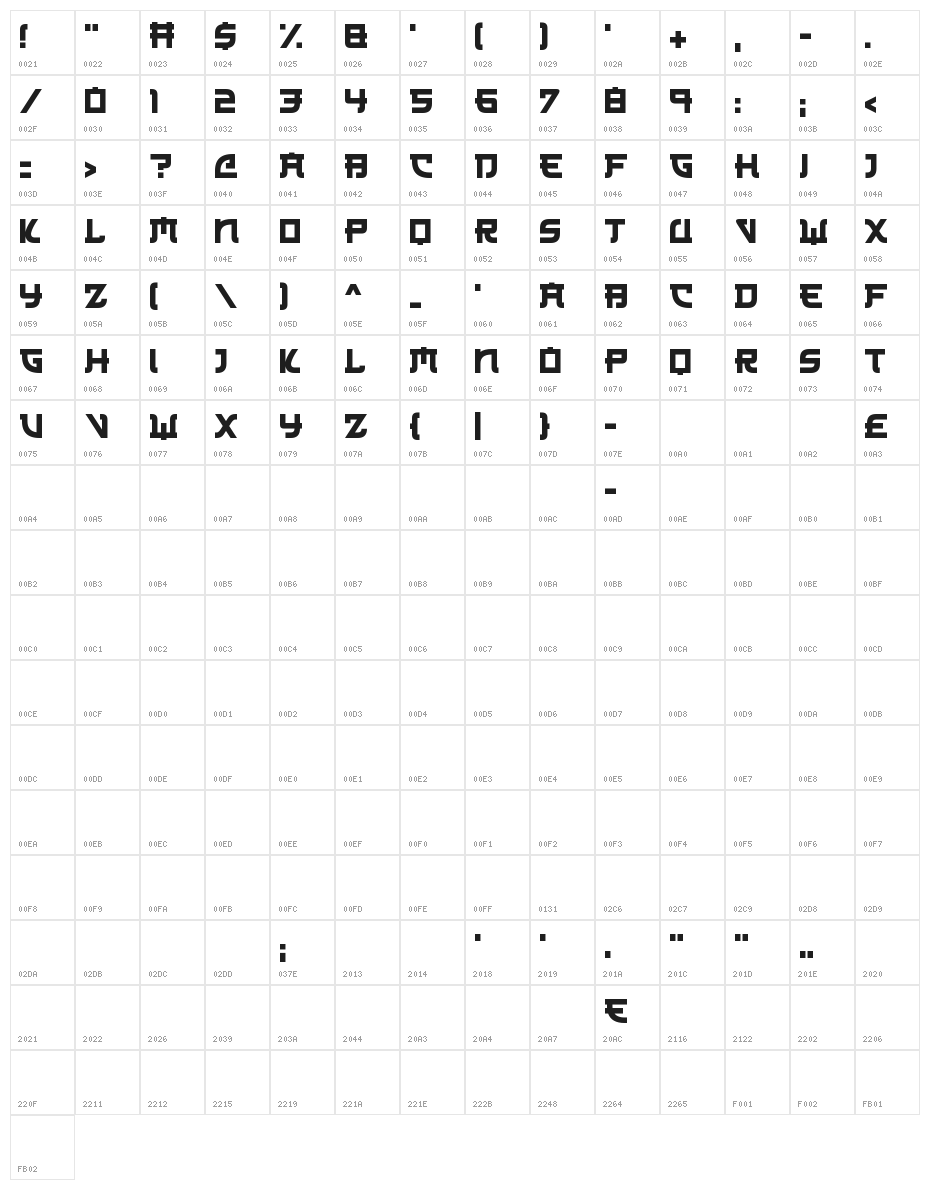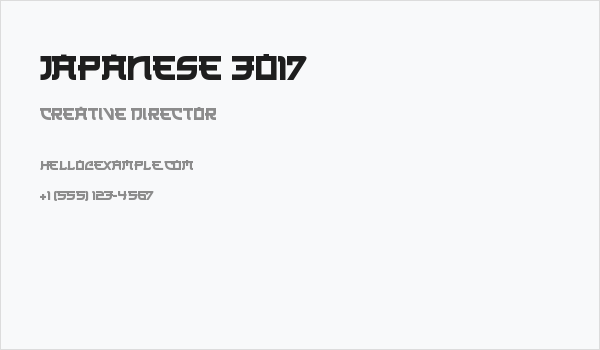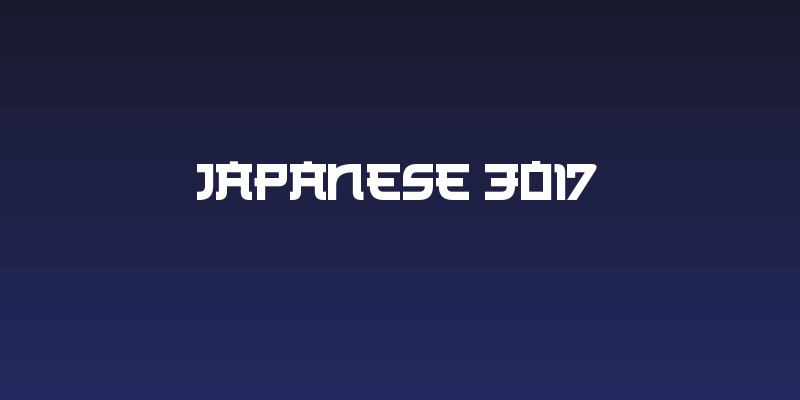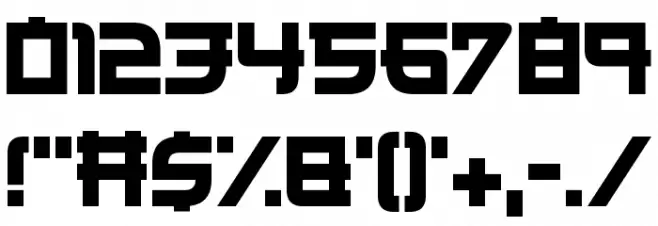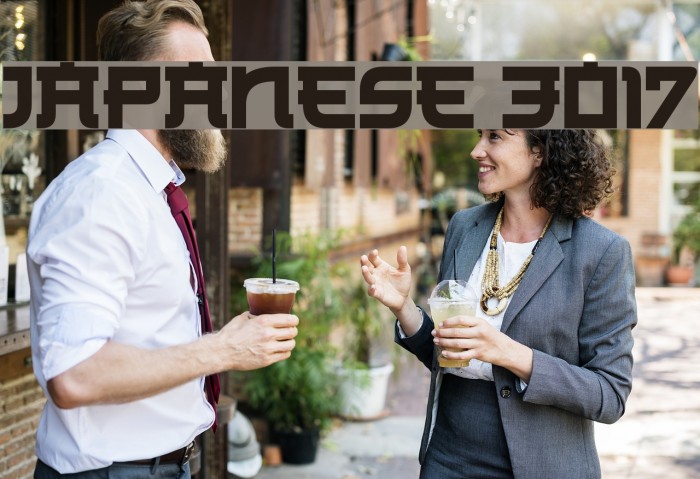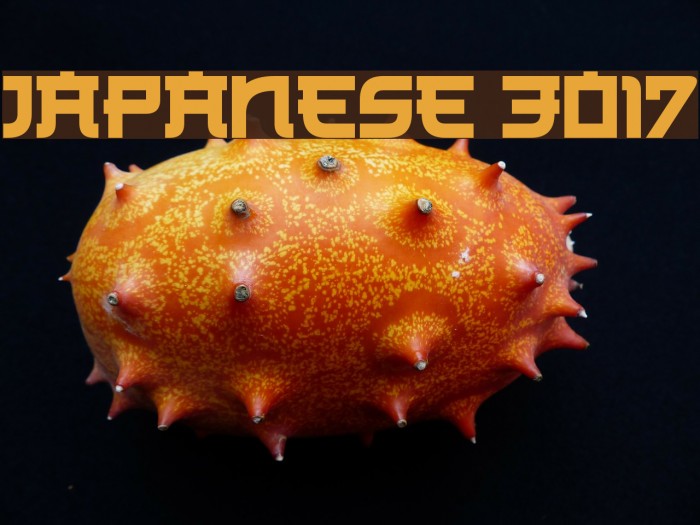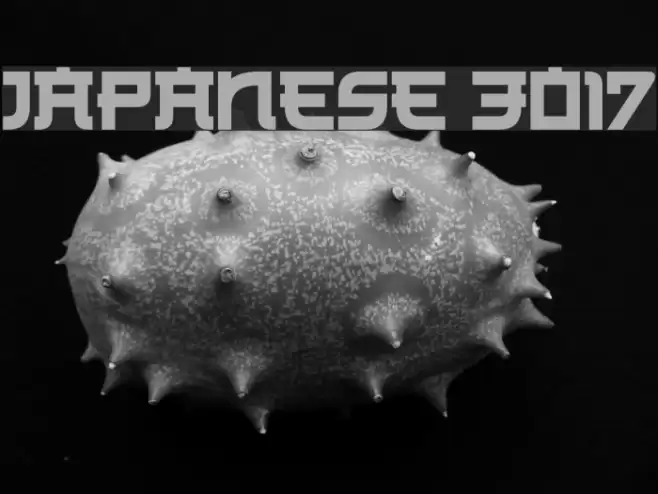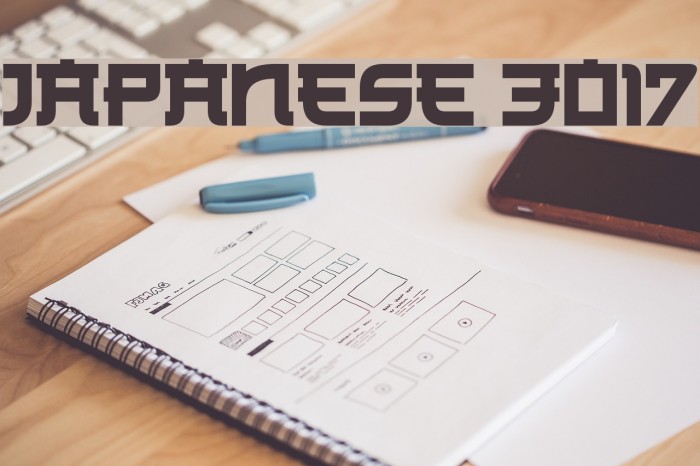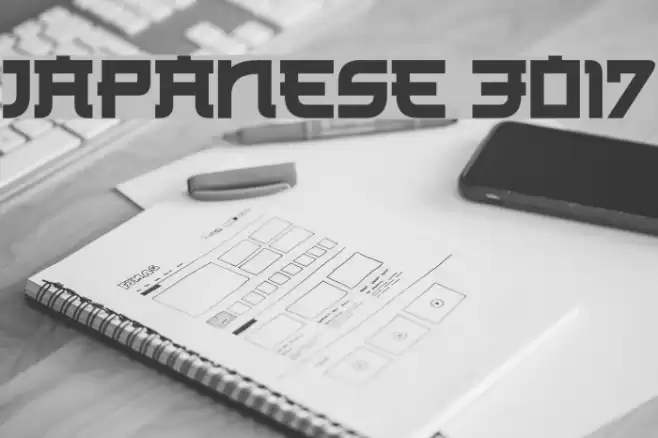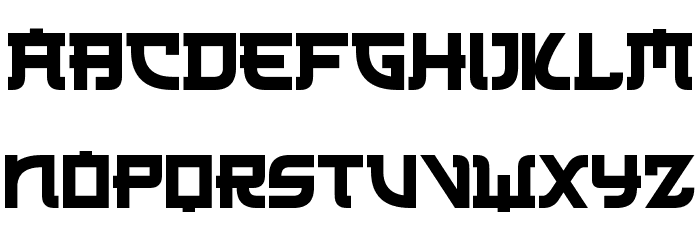
Japanese 3017 Font
Japanese 3017 Description
This font features a bold, geometric design with a futuristic and industrial aesthetic. The characters are constructed with sharp angles and thick strokes, giving them a robust and impactful appearance. The uppercase letters are particularly striking, with unique cuts and curves that add a dynamic feel. The numerals and special characters maintain this bold style, ensuring consistency across all glyphs. The overall design is reminiscent of digital or sci-fi themes, making it suitable for projects that require a modern and edgy look.
| Proposed Projects | Ideal for sci-fi themed posters, video game graphics, tech branding, and digital media. |